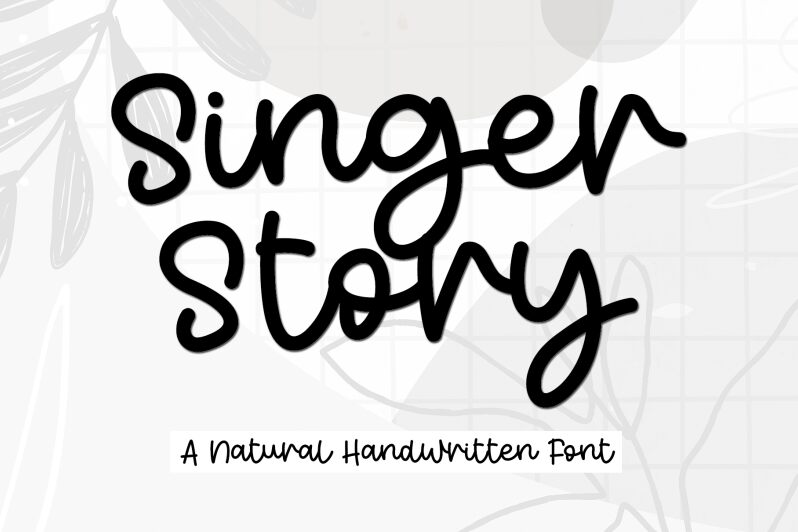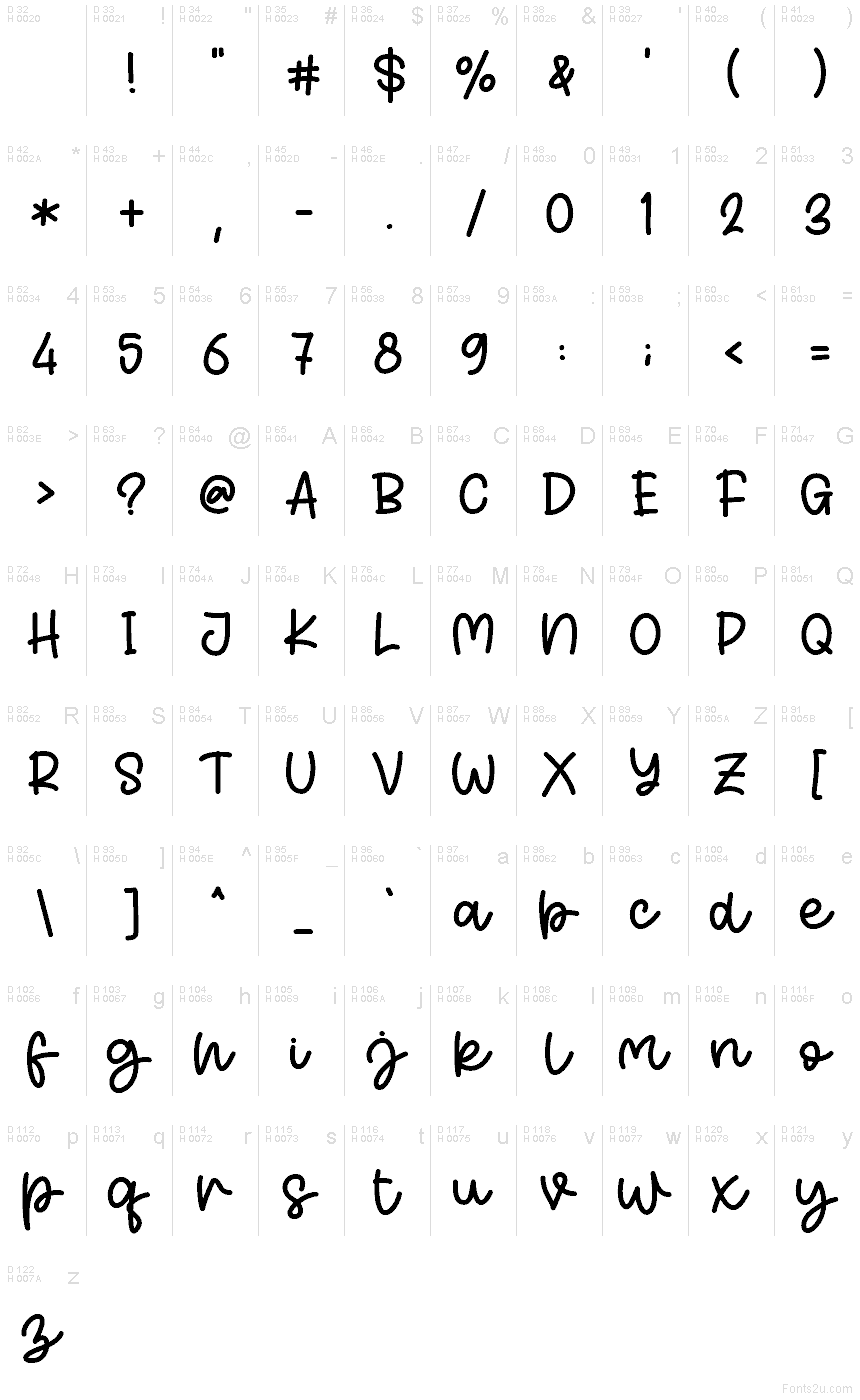
Singer Story font by Letterafa Studio is a free handwritten typeface that feels like a neat note from a creative friend. Its rounded, looping strokes and gentle bounce give every word a warm, sung-out-loud energy, while the steady line weight keeps it clean and easy to read. The letters connect smoothly, creating a flowing rhythm that looks just as good large and bold as it does in smaller accents.
Using Singer Story, you can bring a cozy, personal touch to logos, product packaging, quote graphics, event invitations, greeting cards, YouTube covers, and playful brand identities. This free font shines when you lean into its casual charm—try pairing it with a simple sans serif for body text and let Singer Story handle the headlines or names at a slightly larger size for extra personality.